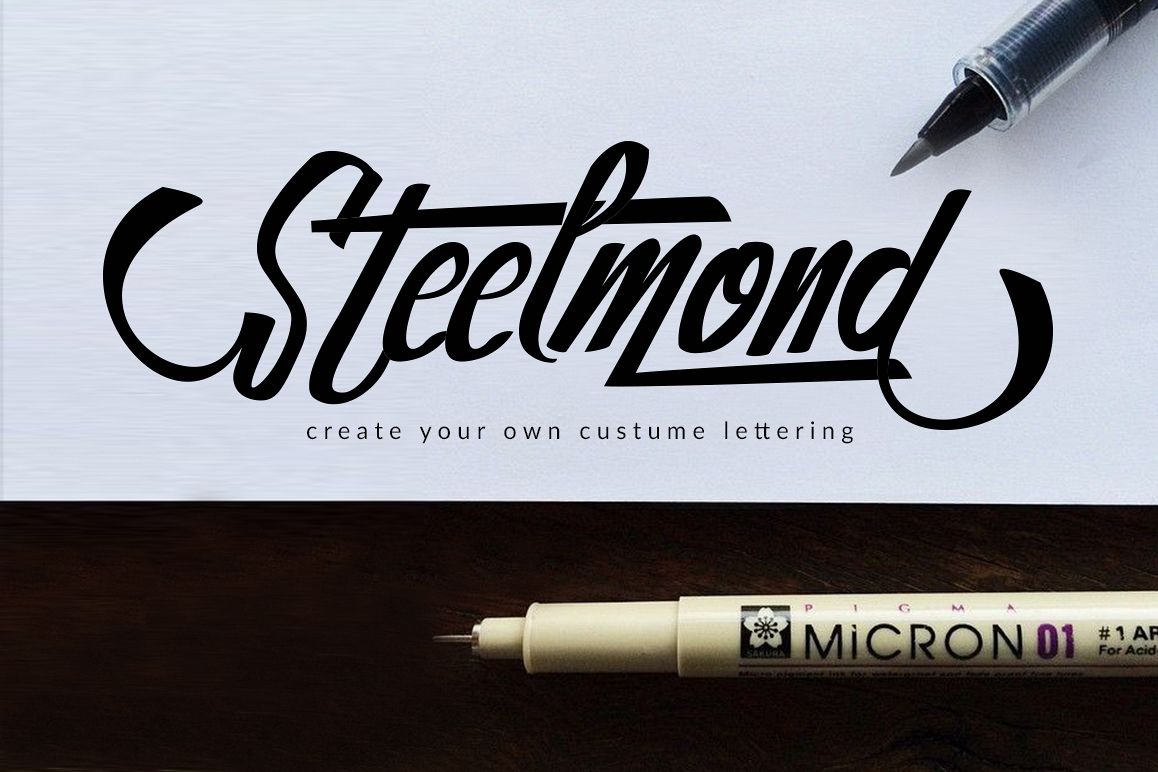
Steelmond
Steelmond is a script font inspired by brush pen hand lettering. It is highly suitable for t-shirt, signage, logo, branding, and packaging. With 326 glyphs in total and 158 alternate characters, you can play with Steelmond font to create your own custom lettering design.
The Features of this fonts is :
Discretionary Ligatures
Stylistic Alternates
Initial and Terminal Forms that setting up in Contextual swashes ( This fonts is automatically setting the initial and terminal forms as default, and if you want to turn off the initial and terminal just click the button of the contextual swashes, it more easier than opening the glyph tab)